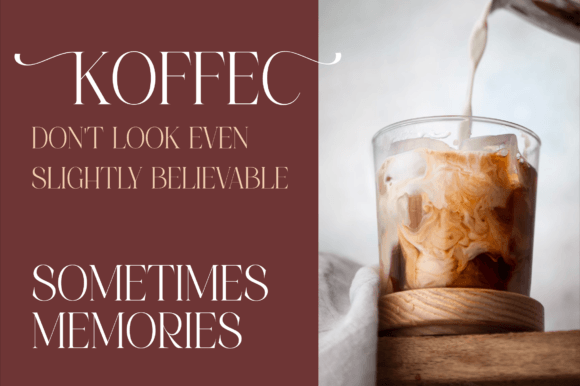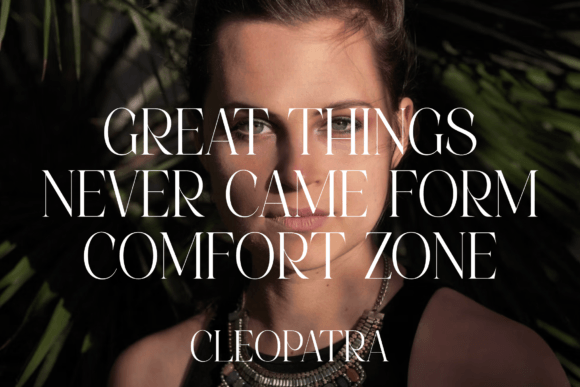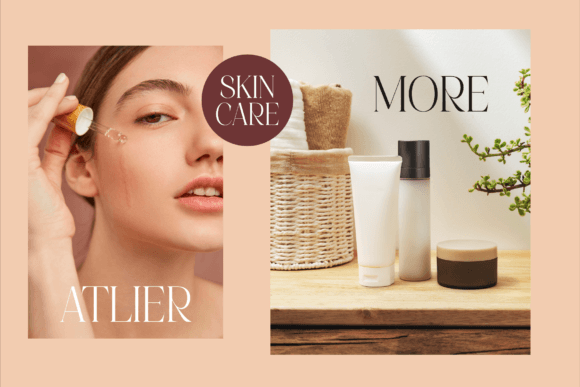
Introduction to Alchadera Font
Proudly present Alchadera Typeface.
A serif modern and classic typeface that has its own unique style & modern look This typeface is perfect for an elegant & luxury logo, book or movie title design, fashion brand, magazine, clothes, lettering, quotes, and so much more.